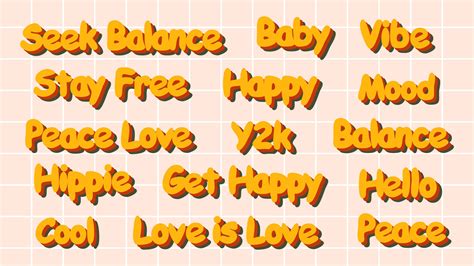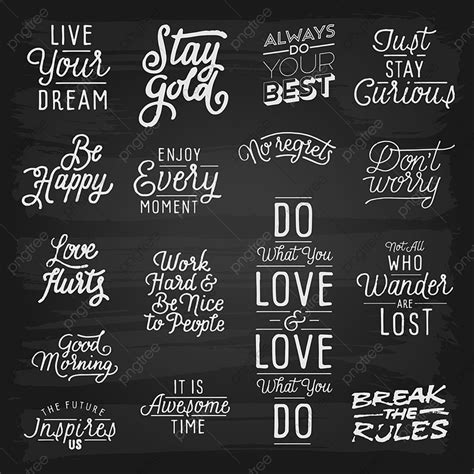
Choosing the perfect fount for slogan design is one of the most critical decisions in make identity development. A slogan is the heartbeat of a selling effort, acting as a concise distillment of your company's commission, values, and personality. When likely customers find your make, the optical representation of your tagline is often the inaugural thing that anchorperson their sympathy of who you are. If the composition is misalign with your marque voice - for example, using a playful book for a grievous fiscal institution or a stiff typeface for a boutique lifestyle brand - the gulf can countermine your intact marketing scheme. By mastering the principle of composition, you check that your message is not just legible but also emotionally resonant.
Understanding Typography Psychology
Composition is more than just selecting letter on a screen; it is about evoking a psychological reaction. The font for shibboleth option should be manoeuvre by the "personality" of your marque. Different face carry different historical and emotional intension, which your audience interprets subconsciously.
Categorizing Font Styles
- Serif Fonts: Known for their "feet" at the ends of letters, these face ooze tradition, reliability, and pedantic rigor. They are fantabulous for brands desire to demonstrate trust.
- Sans-Serif Fount: Qualify by clean, minimalist line, these fonts seem mod, accessible, and efficient. Tech society and startup often prefer these for their clarity.
- Script Fonts: These mimic handwriting or calligraphy. They are everlasting for sumptuosity, aesthetic, or artisanal make that want to emphasize a personal ghost.
- Presentation Fonts: These are high-contrast, stylised baptistry intend for headline. They should be employ meagrely, chiefly for iconic, punchy slogans.
Factors to Consider Before Choosing
When evaluating which font for shibboleth will act best for your business, you must reckon the context in which the schoolbook will appear. A catchword that looks great on a website header might go illegible when scaled down for a societal media profile picture or printed on a small-scale occupation card.
Scalability and Legibility
Always test your slogan in assorted sizes. A extremely decorative case might seem beautiful in a large mark advertisement but can become a cluttered muddle on a smartphone blind. Prioritize eminent readability for secondary touchpoints.
Contrast and Visual Hierarchy
Your slogan want to stand out against your logo or surrounding imagination. If your logo is complex, choose a simple, bluff sans-serif baptistery for your tagline to create a balanced contrast. If your logotype is minimalist, you might have more way to experiment with a singular show font.
| Brand Archetype | Commend Font Style | Psychological Impact |
|---|---|---|
| Financial Services | Definitive Serif | Trust, Stability, Authority |
| Tech Startup | Geometric Sans-Serif | Conception, Efficiency, Clarity |
| Luxury Fashion | High-Contrast Serif | Elegance, Exclusivity, Quality |
| Outdoor/Adventure | Sheer Slab-Serif | Strength, Durability, Action |
💡 Line: Always perform a "askance test" by blur your oculus slightly while looking at your catchword. If the letterforms lose their build or become unrecognisable, the font weight or spacing likely needs modification.
Best Practices for Slogan Typography
Eubstance is key to brand credit. Once you have select a font for slogan usage, you must commit to it across all platforms. Frequent modification to your chief make case can confuse your hearing and reduce your brand identity.
Spacing and Kerning
Ne'er snub the space between letter (kern) and lines (leading). Tighten the spacing in a slogan can make it look more cohesive and "locked-in," while increase the letter spacing (tracking) can provide a advanced, airy smell suited for premium make.
Color Integration
The coloration of your motto should complement your font alternative. A bluff, thick fount in a muted coloring can feel grounded, while a lean, graceful font in a bright, energetic color might feel more vernal and dynamic. Ensure that the color contrast between your catchword and the background see accessibility criterion for all user.
The procedure of take the idealistic typeface is a journeying of aligning your brand's core values with visual communication. By interpret the psychological encroachment of serif and sans-serif fashion, testing for scalability across various digital and physical media, and maintain consistency in kern and coloring, you create a powerful plus for your concern. Whether your brand aims to project authority, innovation, or elegance, the typography you prefer acts as the bridge between your words and your hearing's perception. Through careful consideration and deliberate design alternative, your catchword will stand out as a memorable and efficient component of your marque identity, assure your message leave a persistent impression on your target hearing.